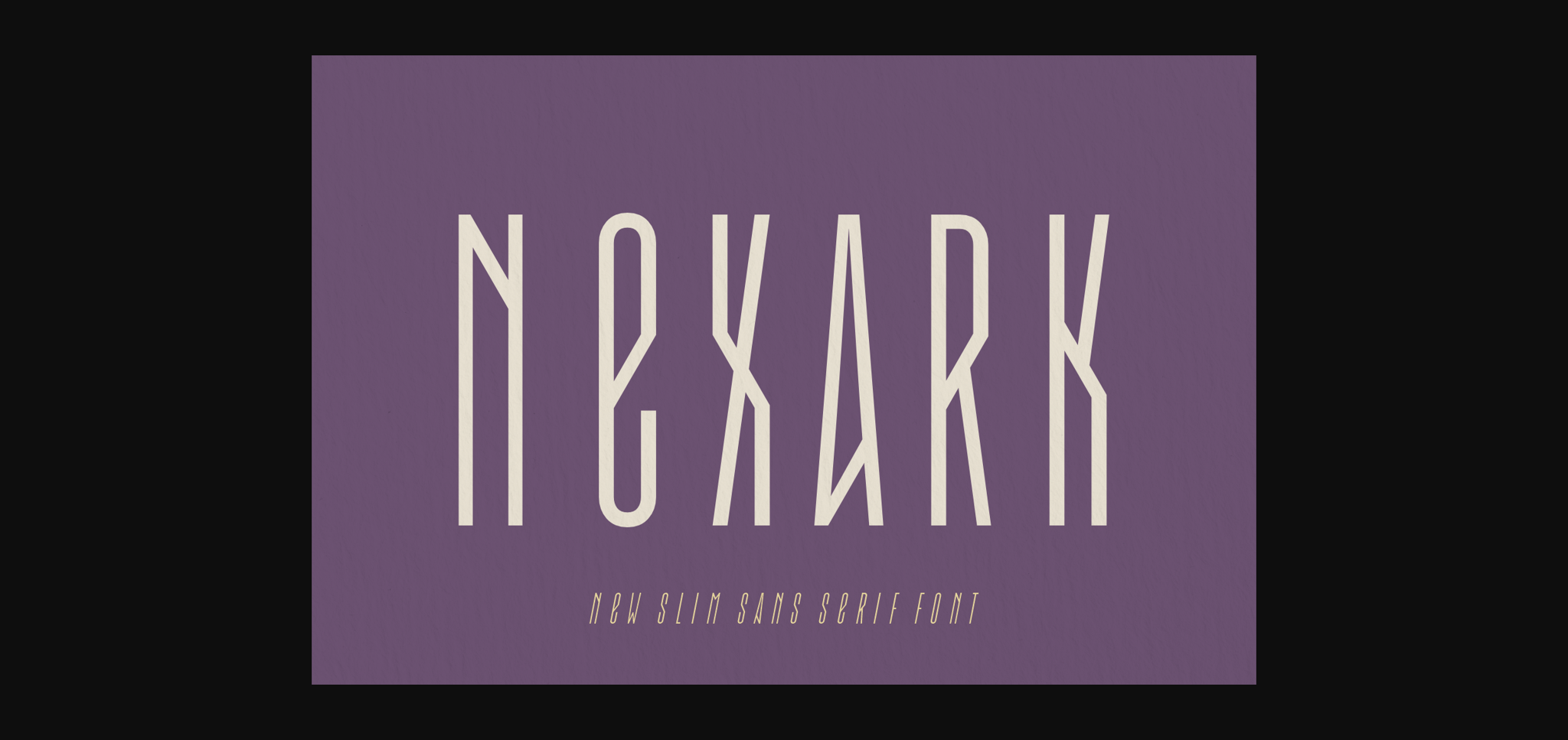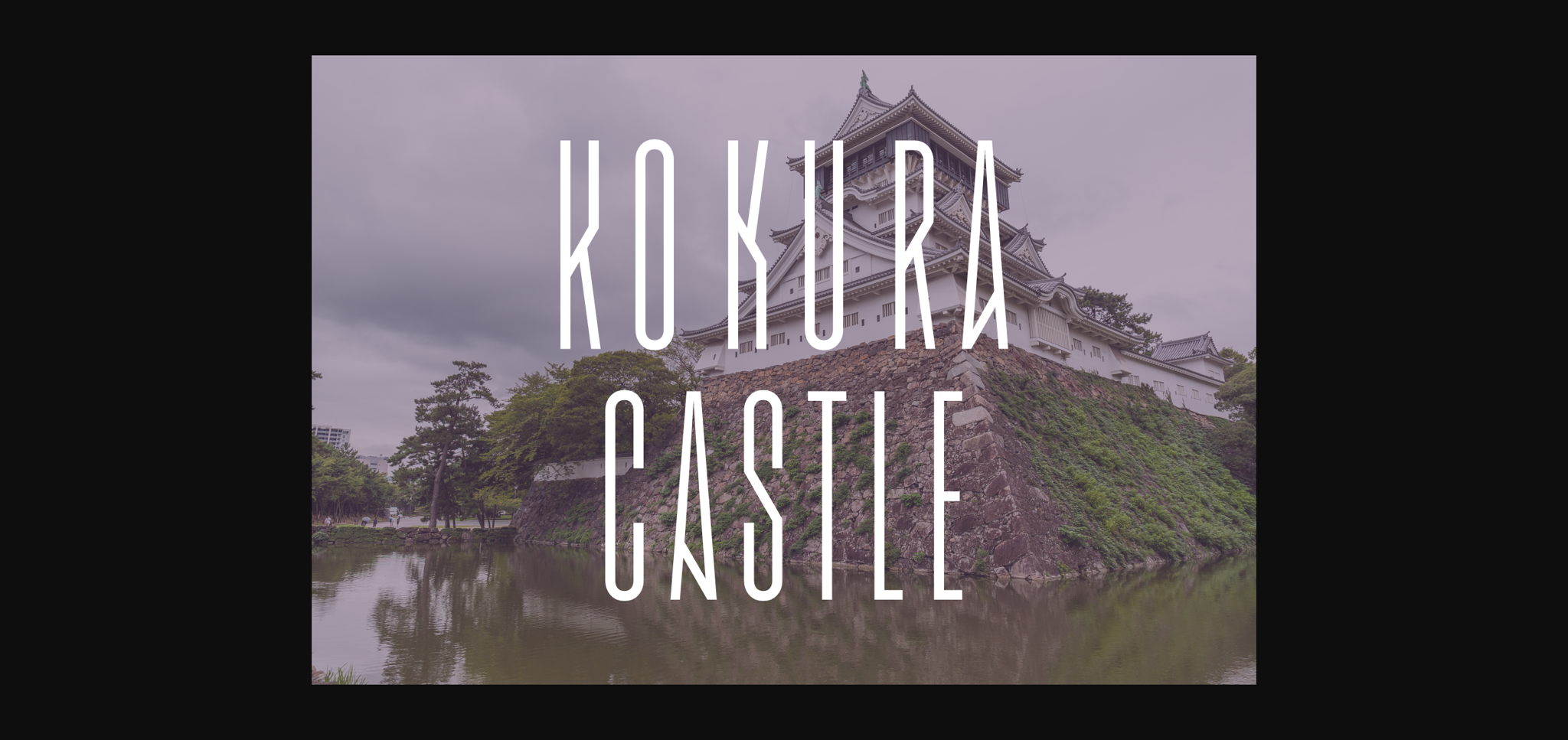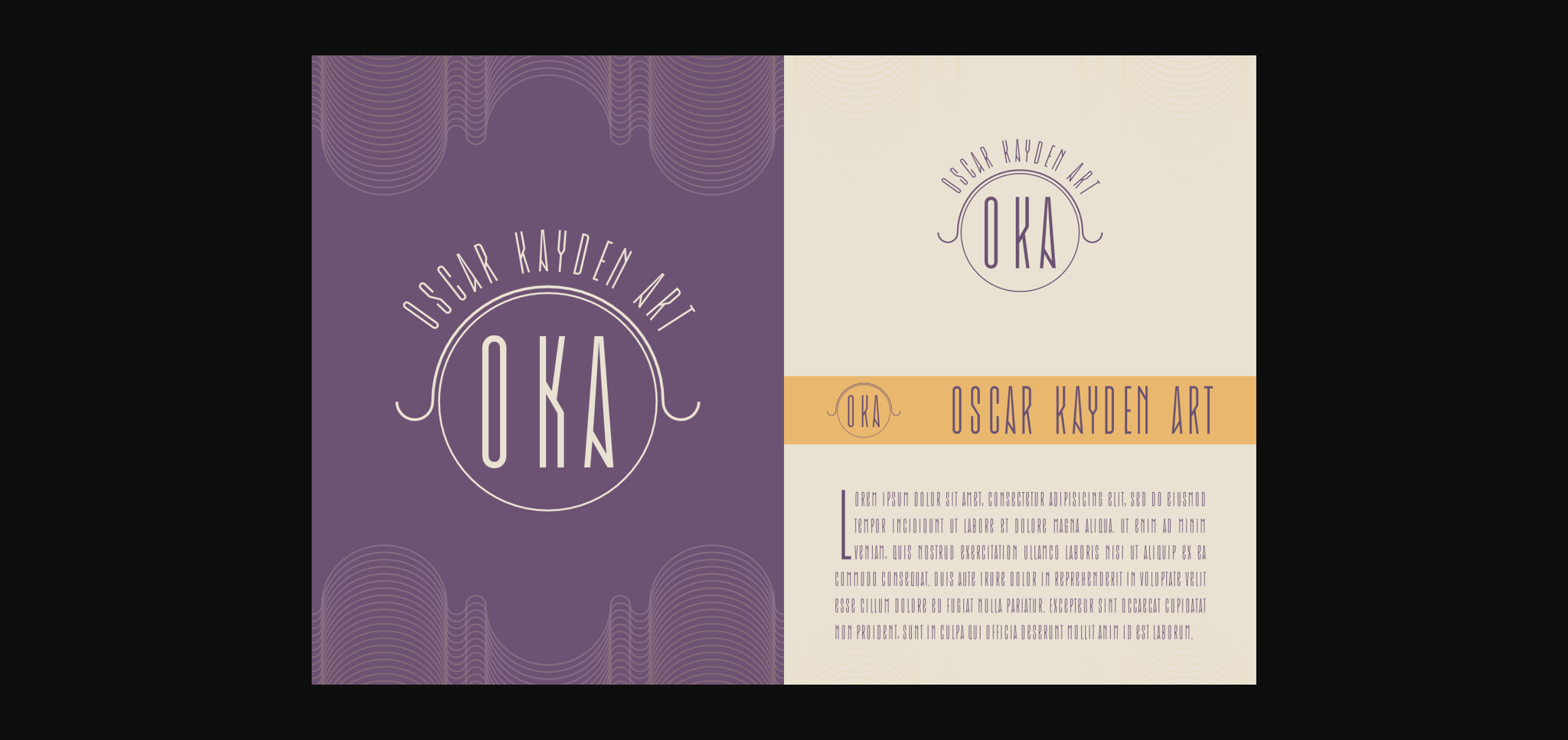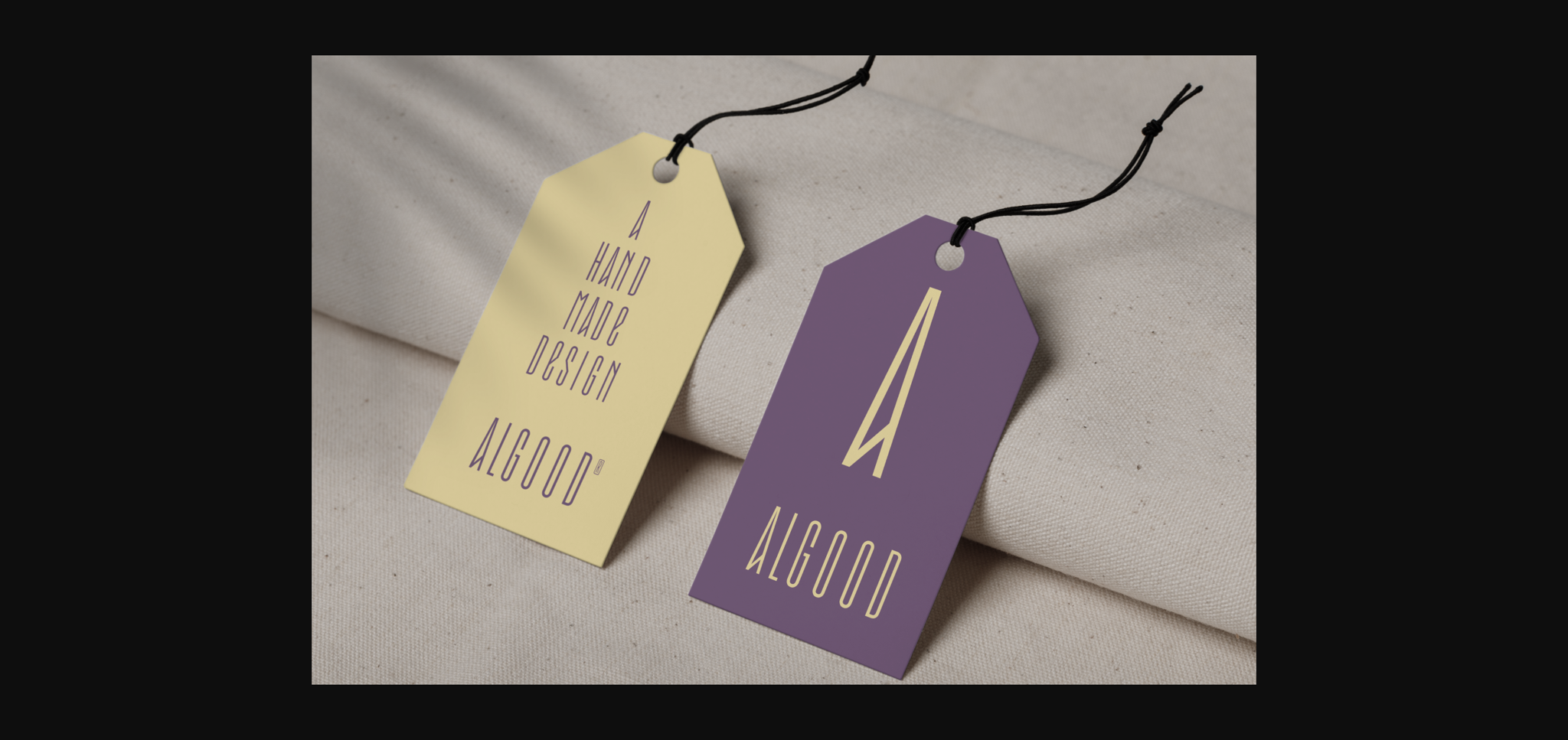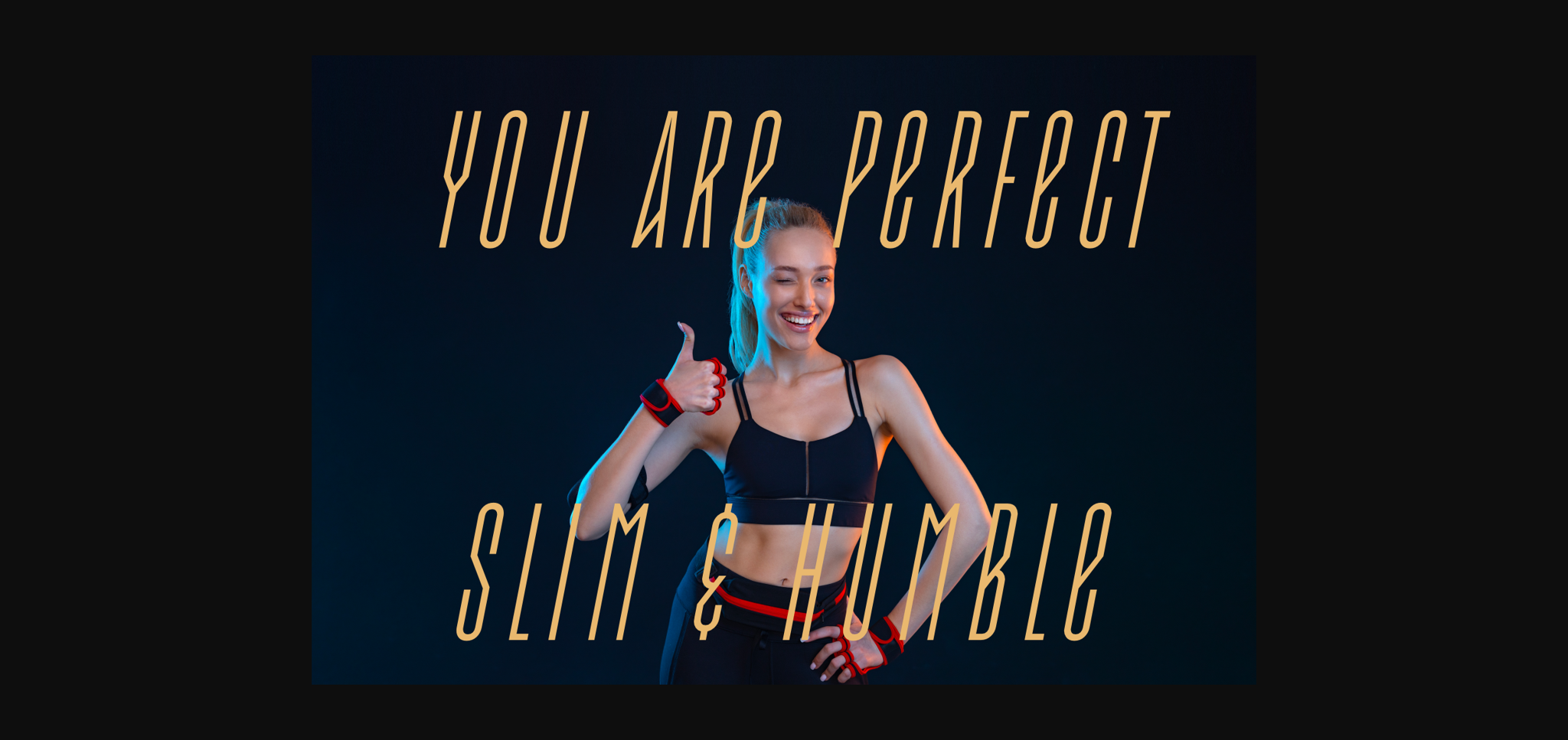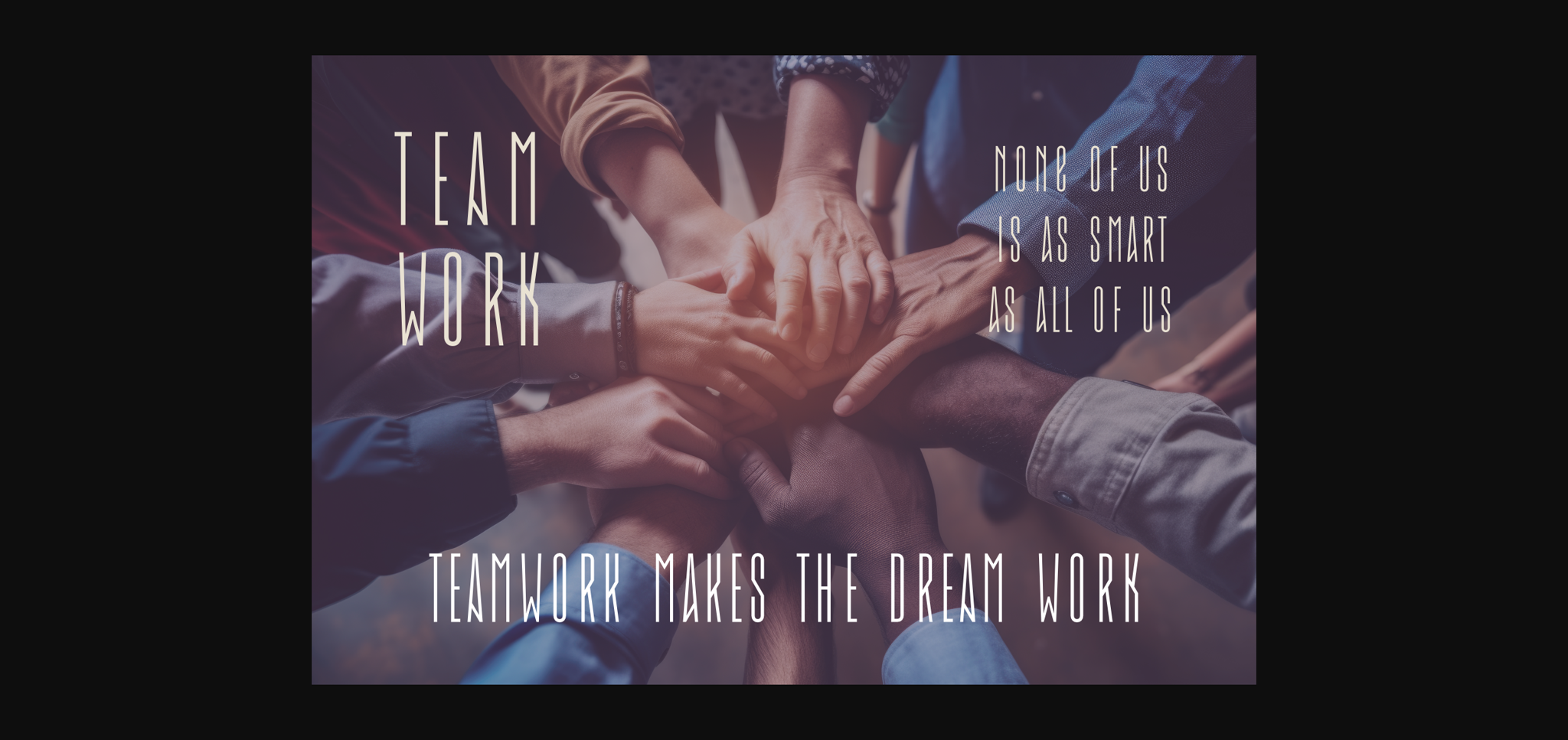
Nexark Font
About Nexark Font
Meet Nexark, a fresh slim, and tall sans serif font. Its clean lines and modern vibe make it stand out. Perfect for a sleek, contemporary look in your projects. Nexark adds a touch of sophistication without sacrificing simplicity. Try it for a crisp and stylish feel in your designs.